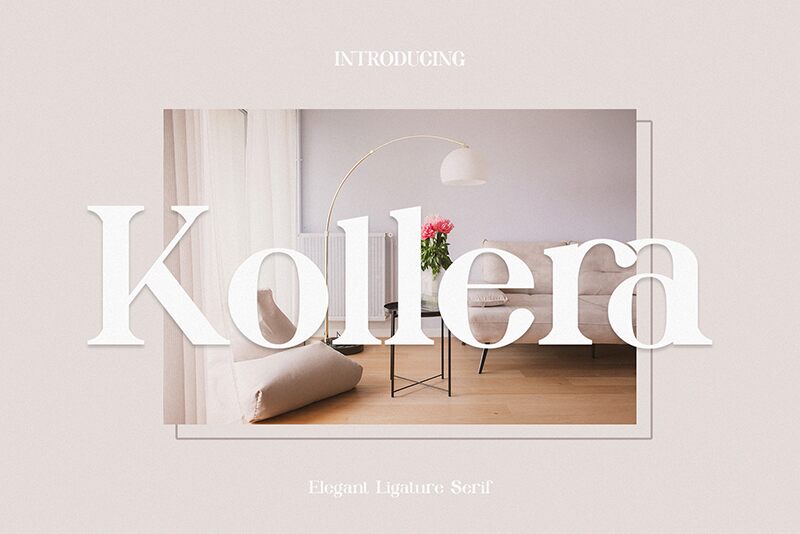
Kollera, a creation by Alfin Ridhowi, stands out with its elegant serif design and semi-bold weight. This font exudes a classic refinement with a contemporary twist, making it an ideal choice for those seeking to infuse their creative work with sophistication and visual impact. Its serifs are designed to draw the eye, adding a touch of grace to each character while maintaining readability.
The balanced proportions of Kollera ensure that it provides an inviting aesthetic appeal that can be versatile across various mediums-be it print or digital. Perfect for headlines, branding projects, or editorial design, this font's semi-bold weight offers the perfect emphasis without overpowering the accompanying elements of your design. Kollera's allure lies not only in its appearance but also in its ability to harmonize functionality with style-making it a go-to for designers aiming for elegance with substance.